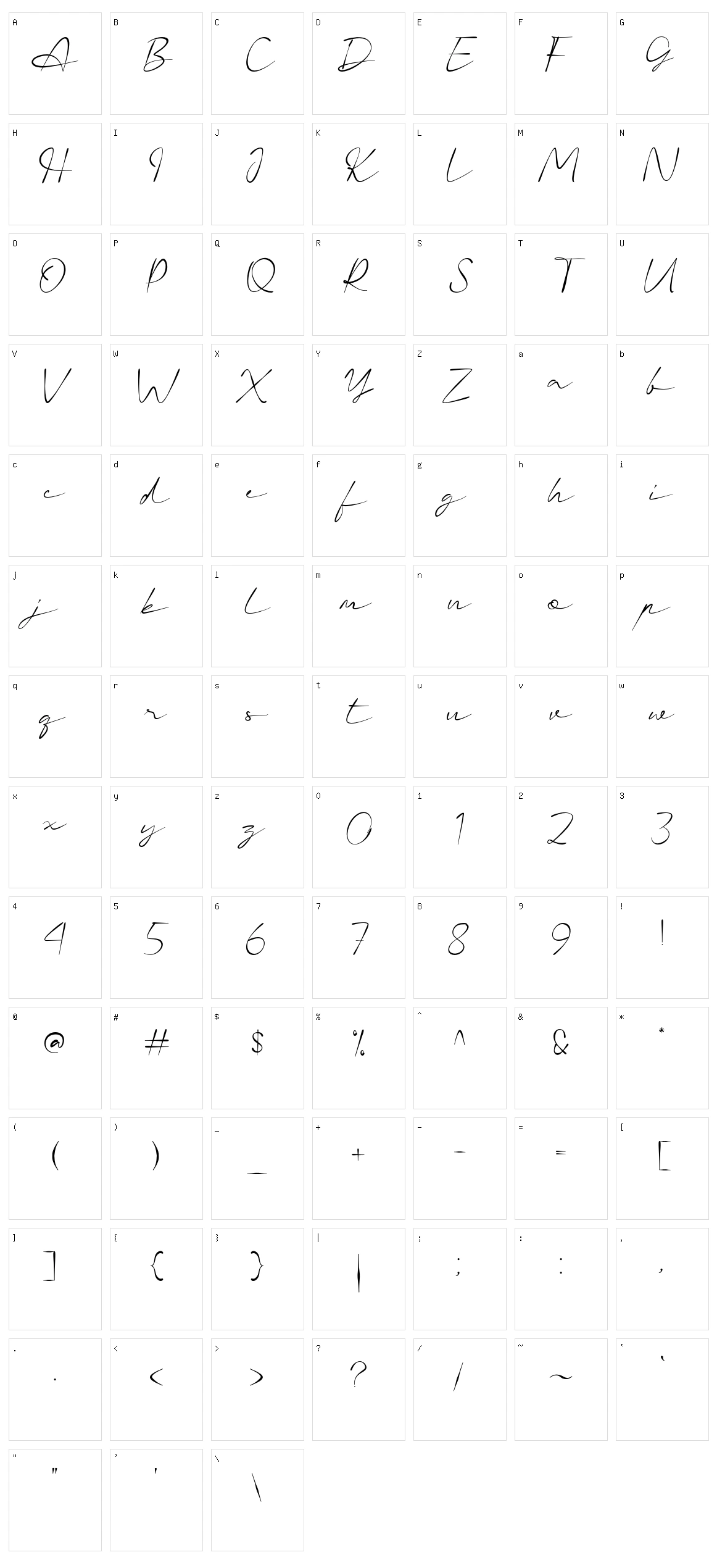
The free font Charlotte is carefully designed by StringLabs Creative Studio, showcasing a thoughtful balance of creativity and usability and falls under the Script font style. When you download the ZIP file, it contains only 43.69 KB of font files, making it lightweight and quick to download. Please review the license details below to understand permitted usage and distribution rights. If license information is not available, we recommend using this font for personal projects only or contacting the author directly for commercial usage permissions.